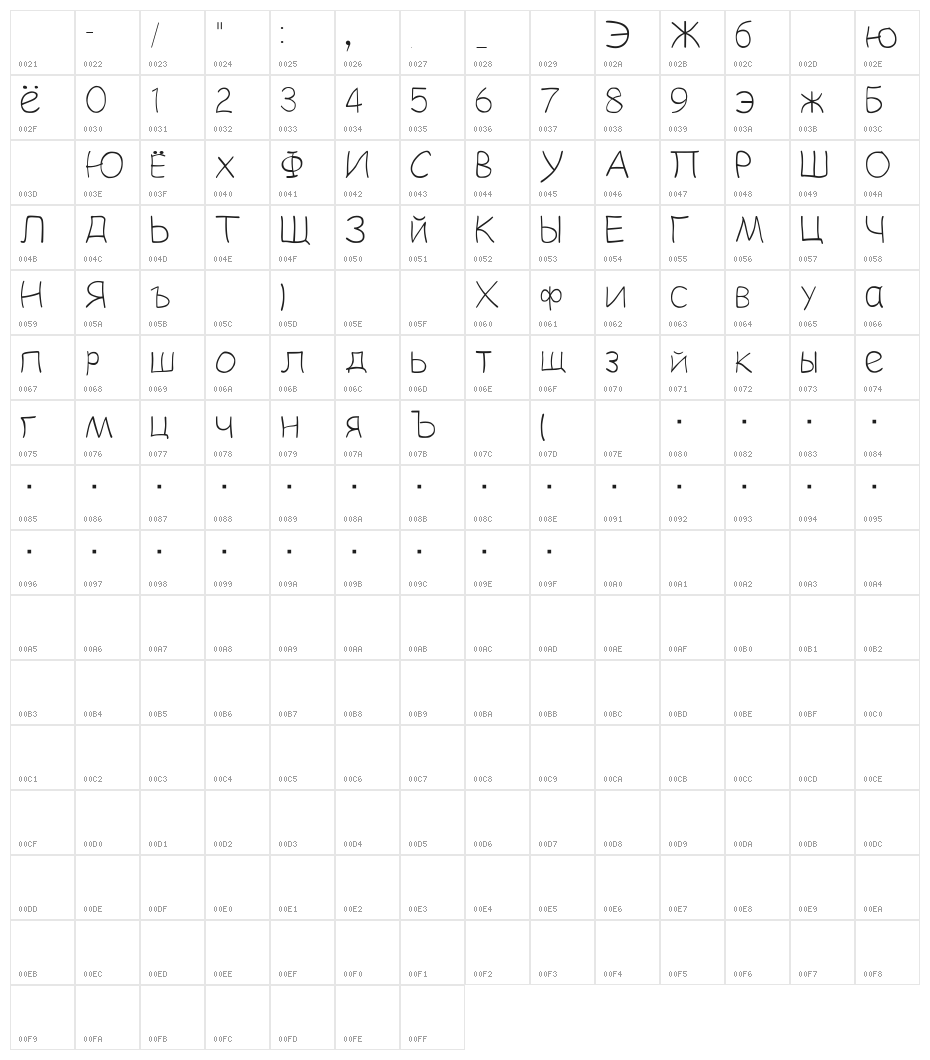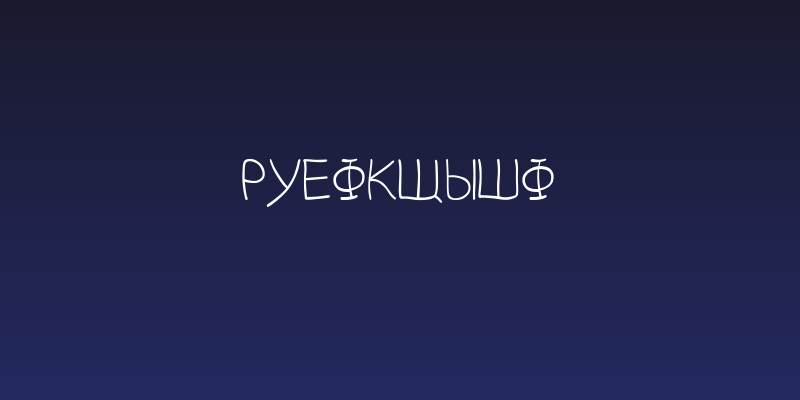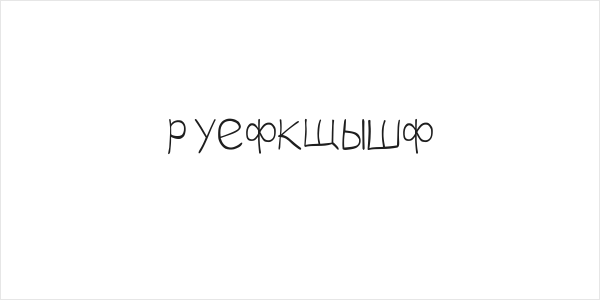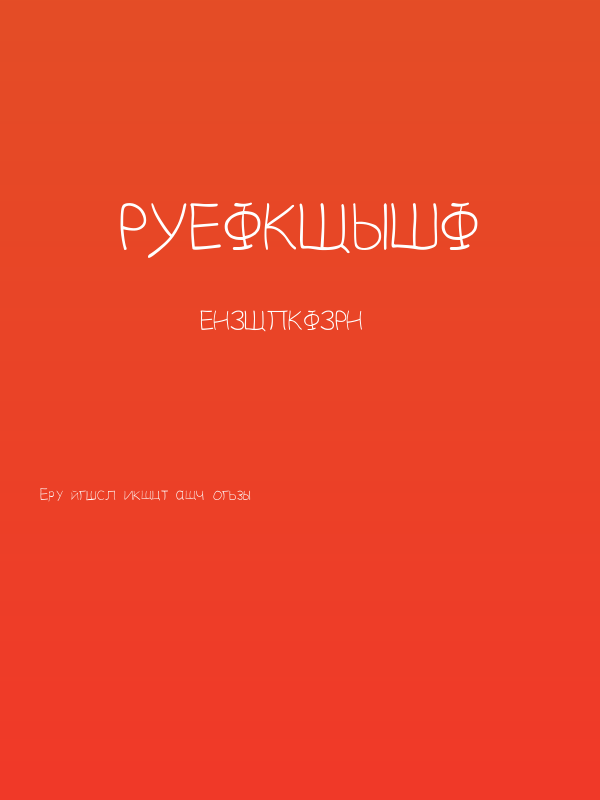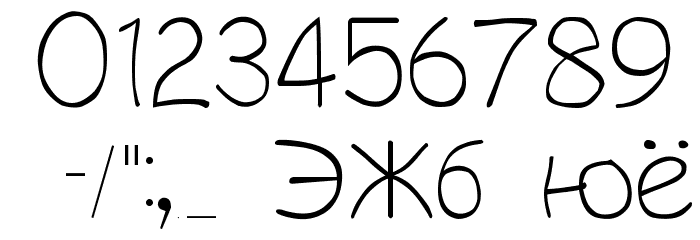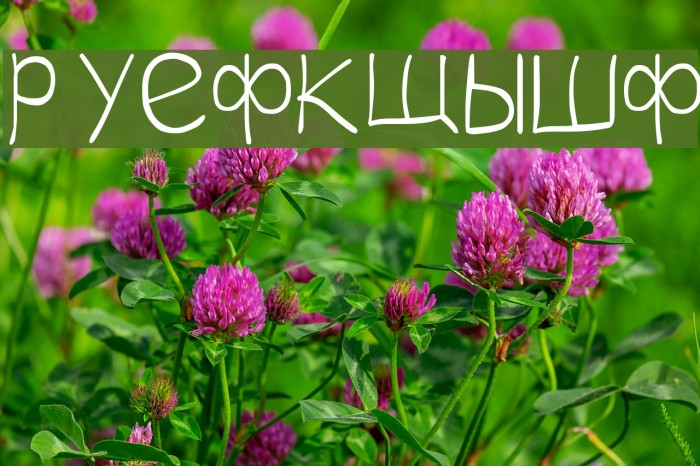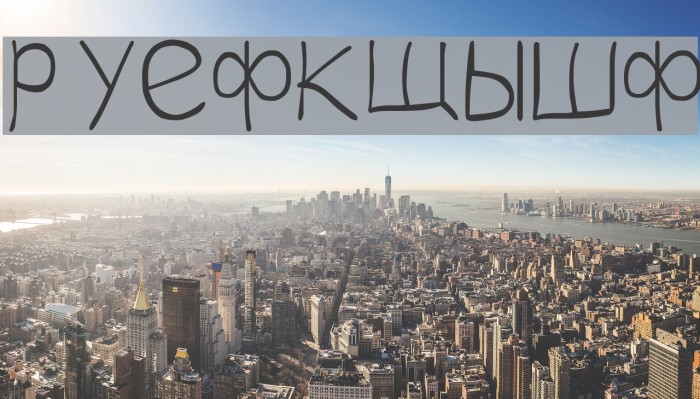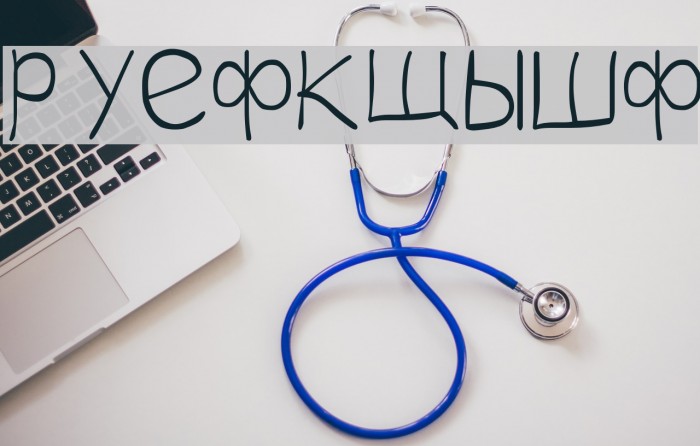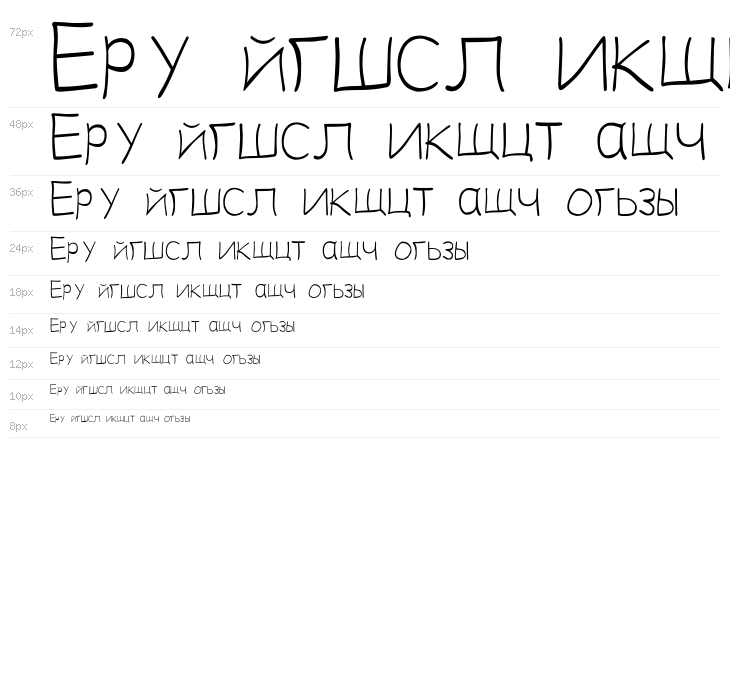
hetarosia Font
hetarosia Description
This font features a playful and informal style, characterized by its handwritten appearance. The letters are slightly irregular, giving it a casual and approachable feel. The strokes are consistent in thickness, providing a uniform look across all characters. The rounded edges and smooth curves contribute to its friendly and whimsical nature. This font includes both uppercase and lowercase letters, numerals, and a selection of punctuation marks, making it versatile for various uses. Its unique style makes it stand out, perfect for projects that require a personal touch.
| Proposed Projects | Ideal for greeting cards, children's books, personal blogs, and informal invitations. |